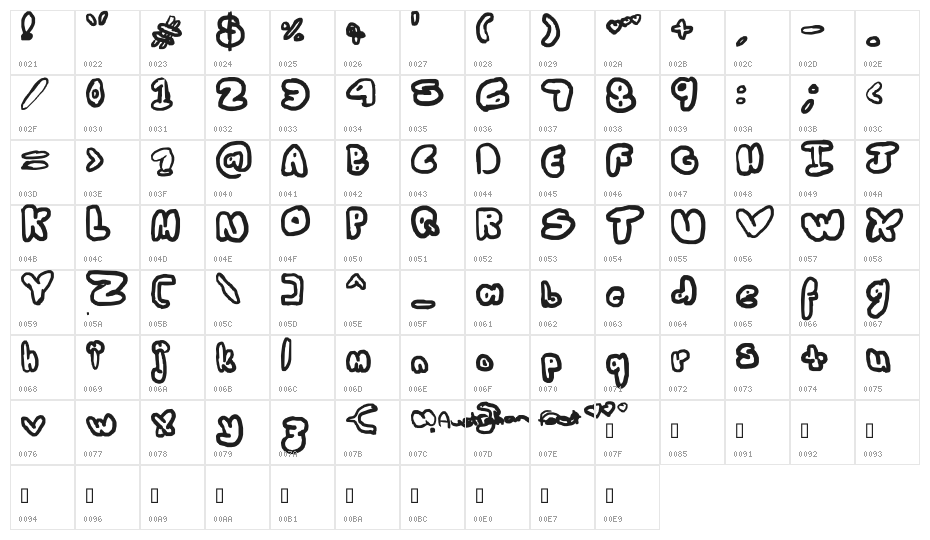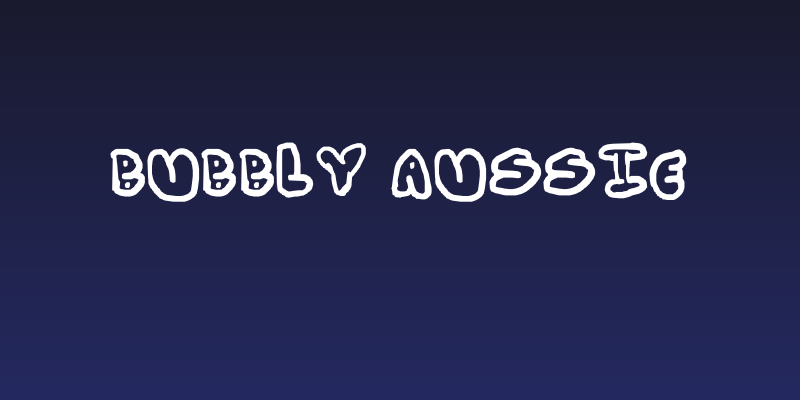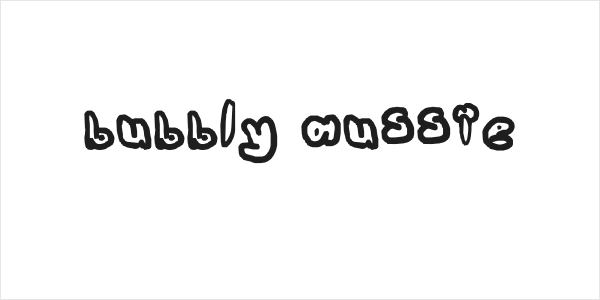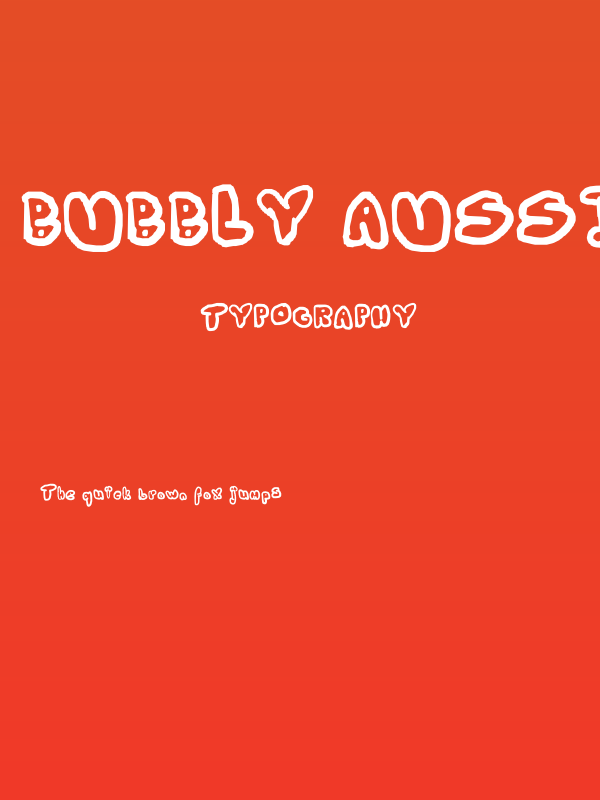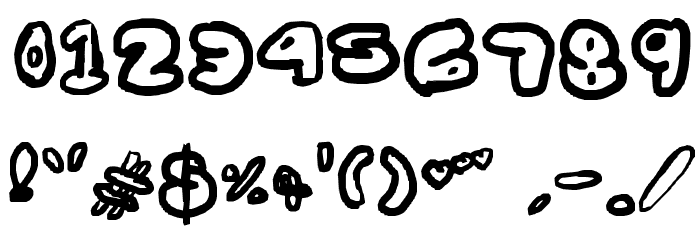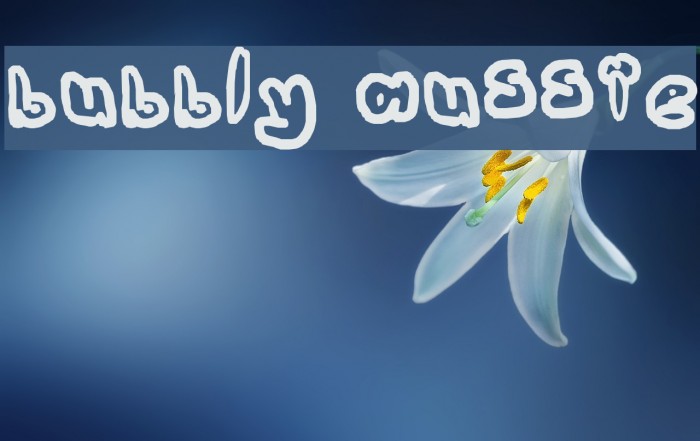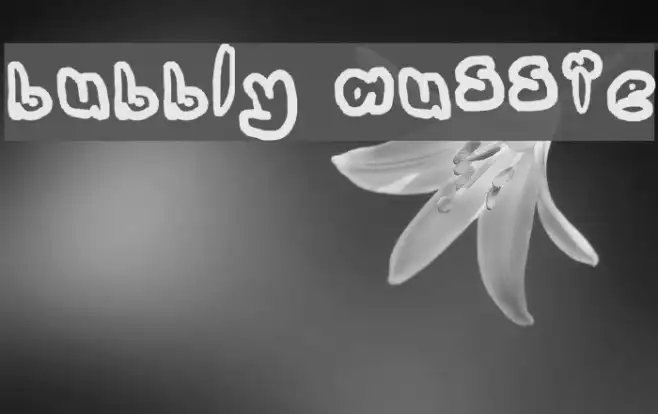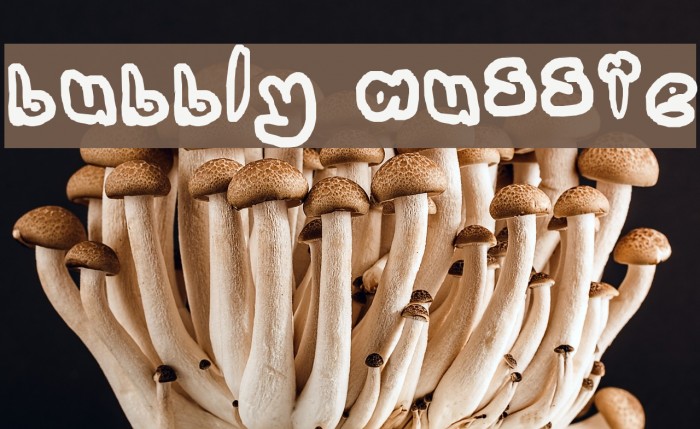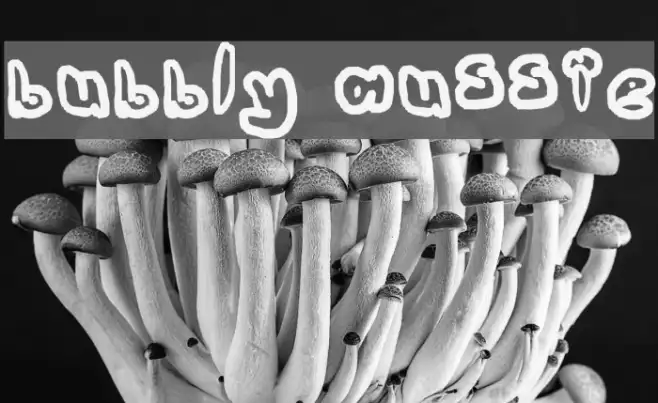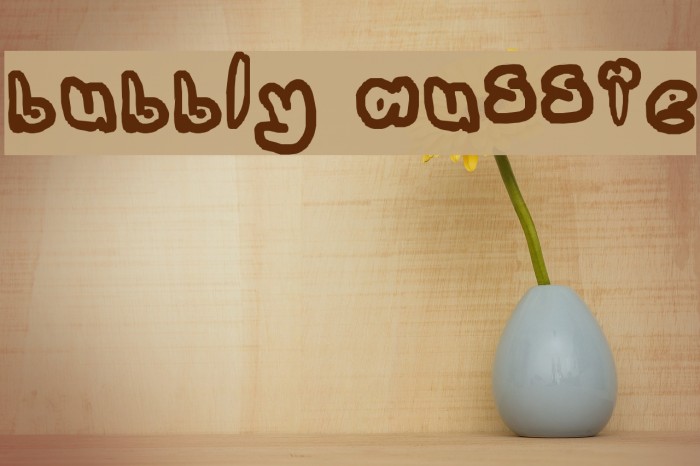
bubbly aussie Font
bubbly aussie Description
This playful and bubbly font features thick, rounded letters with a whimsical and cartoonish style. Each character is outlined with a bold, black stroke, giving it a hand-drawn appearance. The letters are slightly irregular, adding to the casual and fun vibe. The numbers and special characters maintain the same playful aesthetic, making this font ideal for projects that require a lighthearted and informal touch. Its unique style is perfect for children's books, party invitations, or any design that aims to convey joy and creativity.
| Overall Style | Playful, Whimsical |
| Proposed Projects | Ideal for children's books, party invitations, playful branding, and creative posters. |